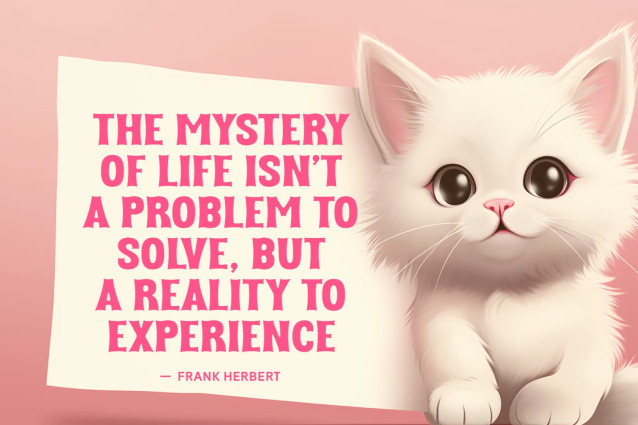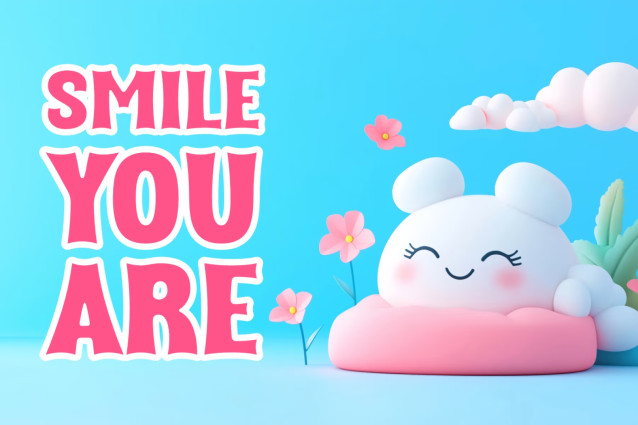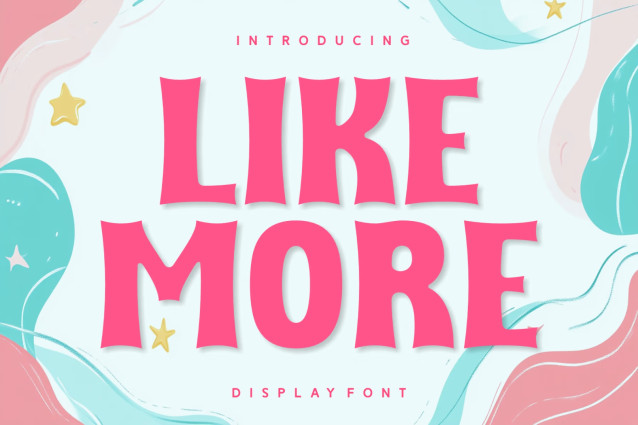
Like More Font
Introducing “Like More” – a captivating display font that embodies femininity and romance, injecting an air of elegance and charm into your designs. It boasts a youthful approach, fashioning the perfect addition for your captivating wallpapers or endearing hand-drawn sketches. Not only does it perform wonderfully as a headline or centerpiece, but the font also excels in crafts, accentuating the beauty of your creative work.
“Like More” is what you need when you desire an exquisite touch for your books and greeting cards. Its authenticity shines brilliantly, evoking feelings associated with the pages of a heartfelt novel or the cover of a stylish magazine. It seamlessly integrates into branding, imbuing an authentic aesthetic in business cards and clean packaging designs.
Garner likes and shares on your social media platforms with this fabulous font, or make your photography captions more engaging with its smooth strokes. Use it in your sublimation designs or as the star of your print projects, it shines brightly even in the simplest school designs.
The versatility of “Like More” runs the gamut from striking t-shirt typography to pleasing quote graphics, appealing book covers, and a whole range of other uses. It adapts well seasonally, fitting in equally with summery or wintry themes, and adds a spark of life to cartoon creations. Now firmly in step with the latest typography trends, this font comes with multilingual support. Upgrade your creative toolkit with the versatile and beautiful “Like More” font.